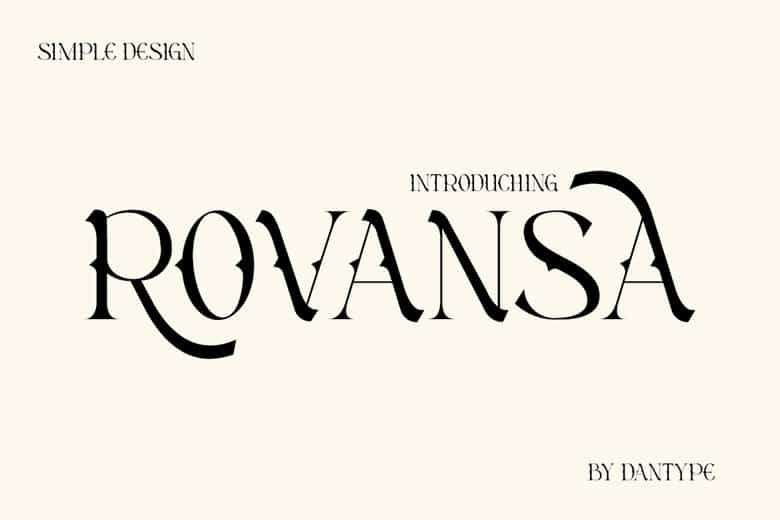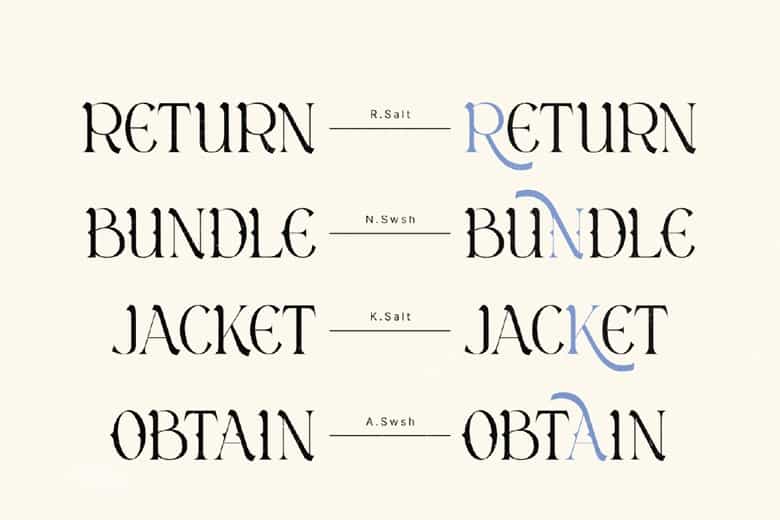
Rovansa is a new serif typeface. It could be used well on photography, social media postings, advertisement, logo and branding, invitation cards, product designing, labeling, stationary, product packaging, special events and others.